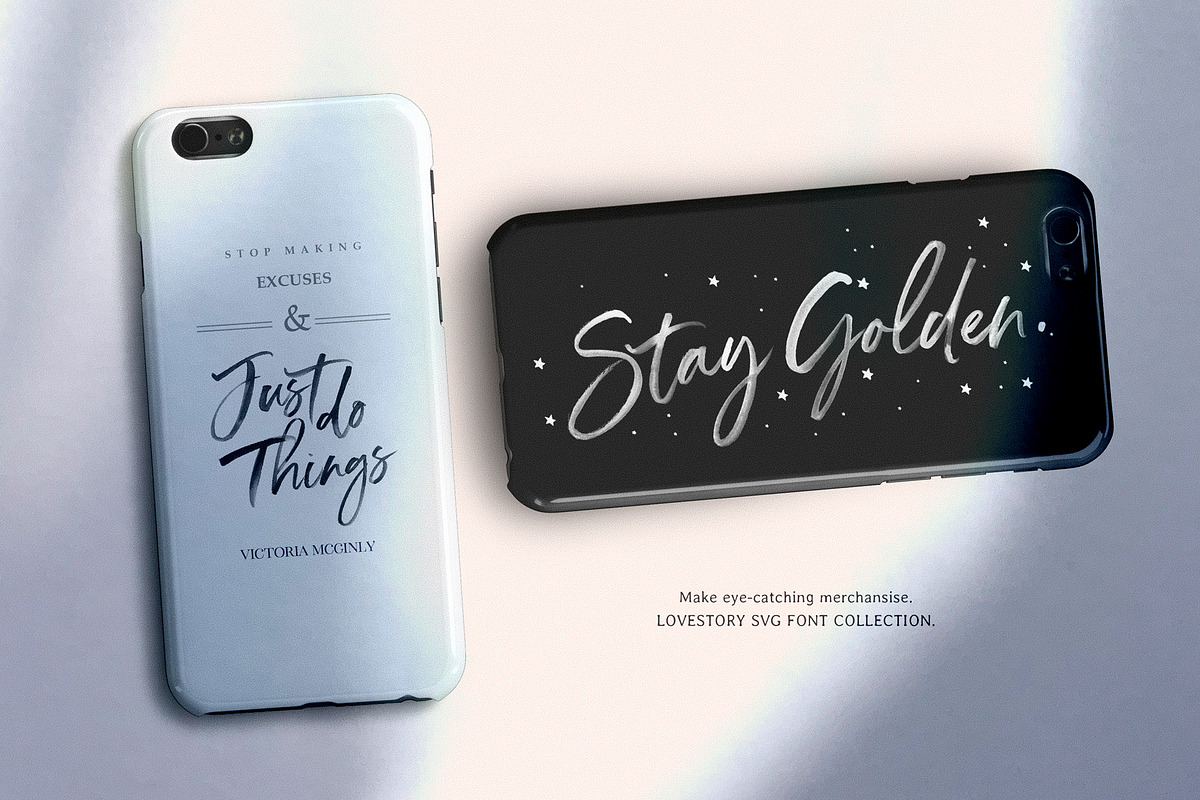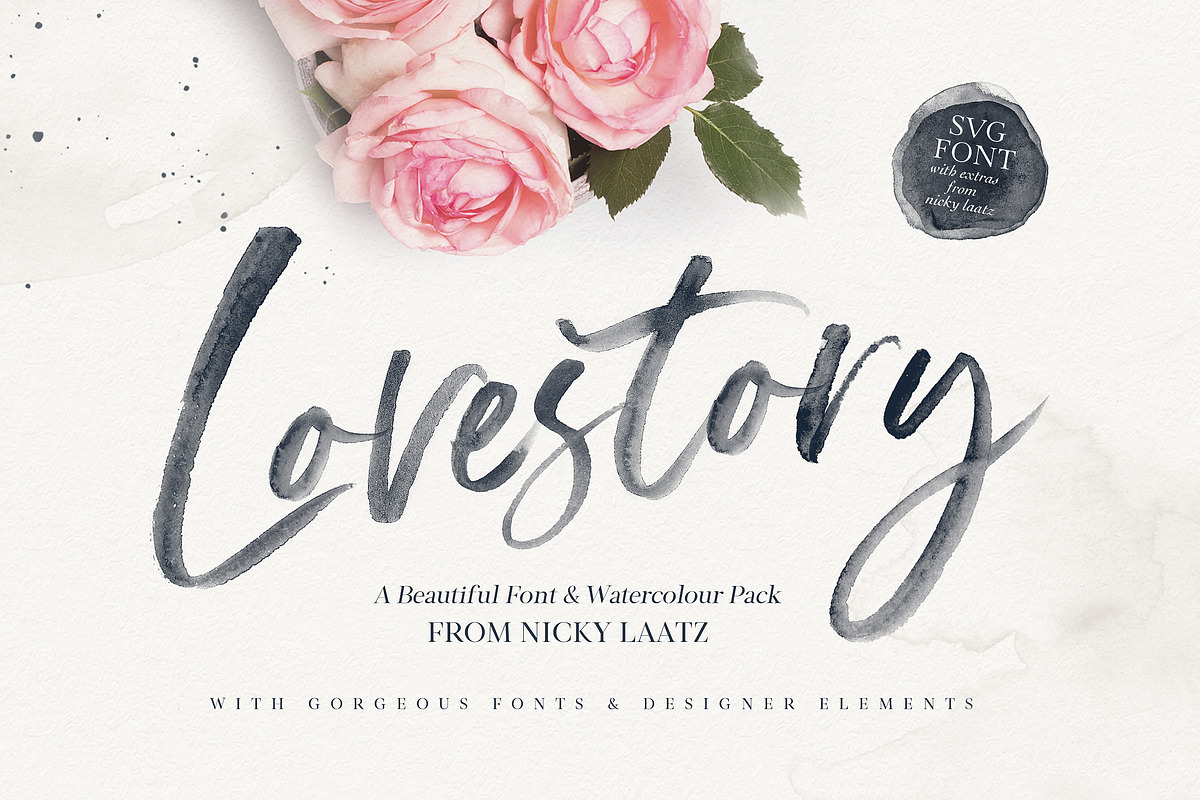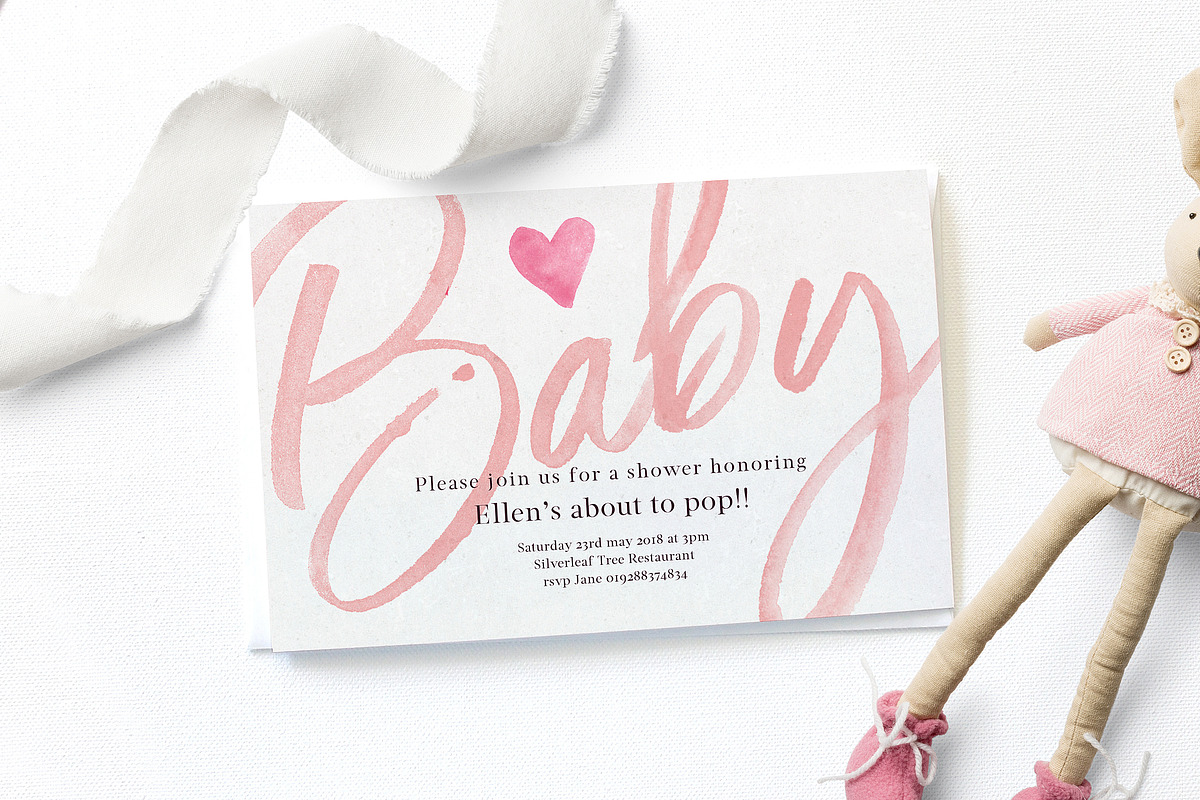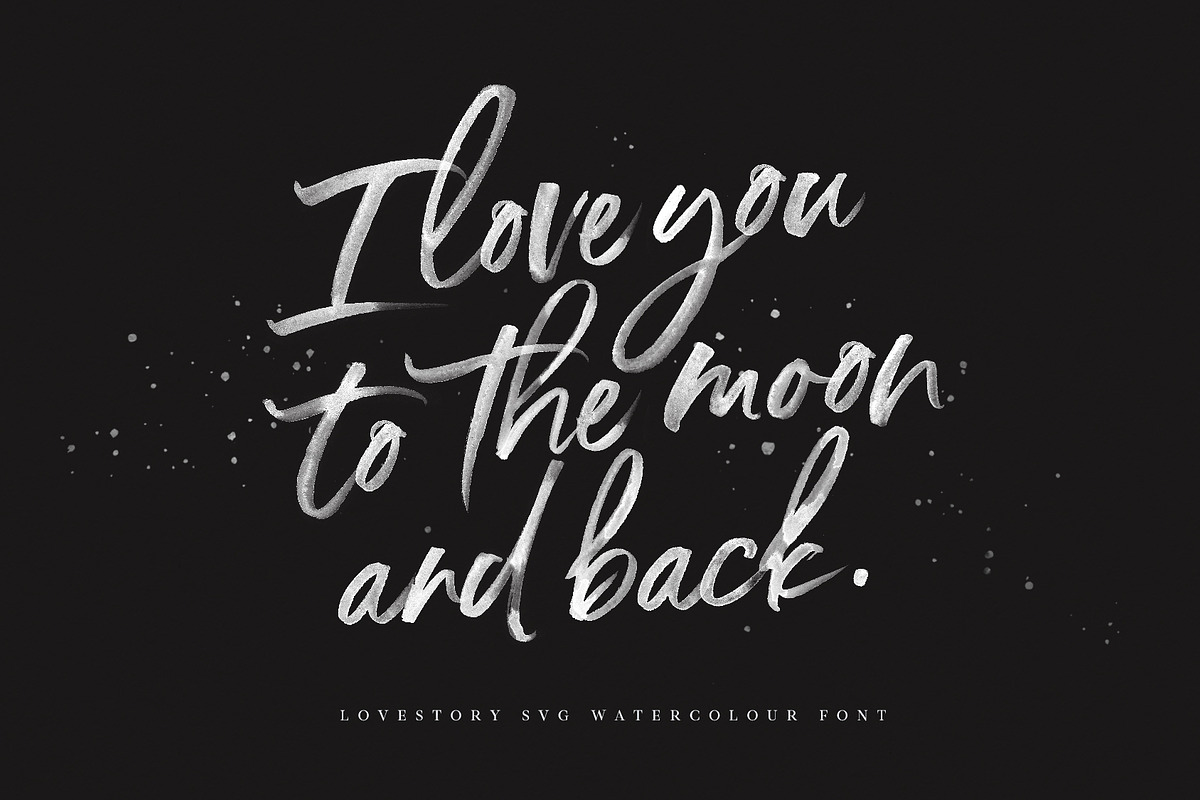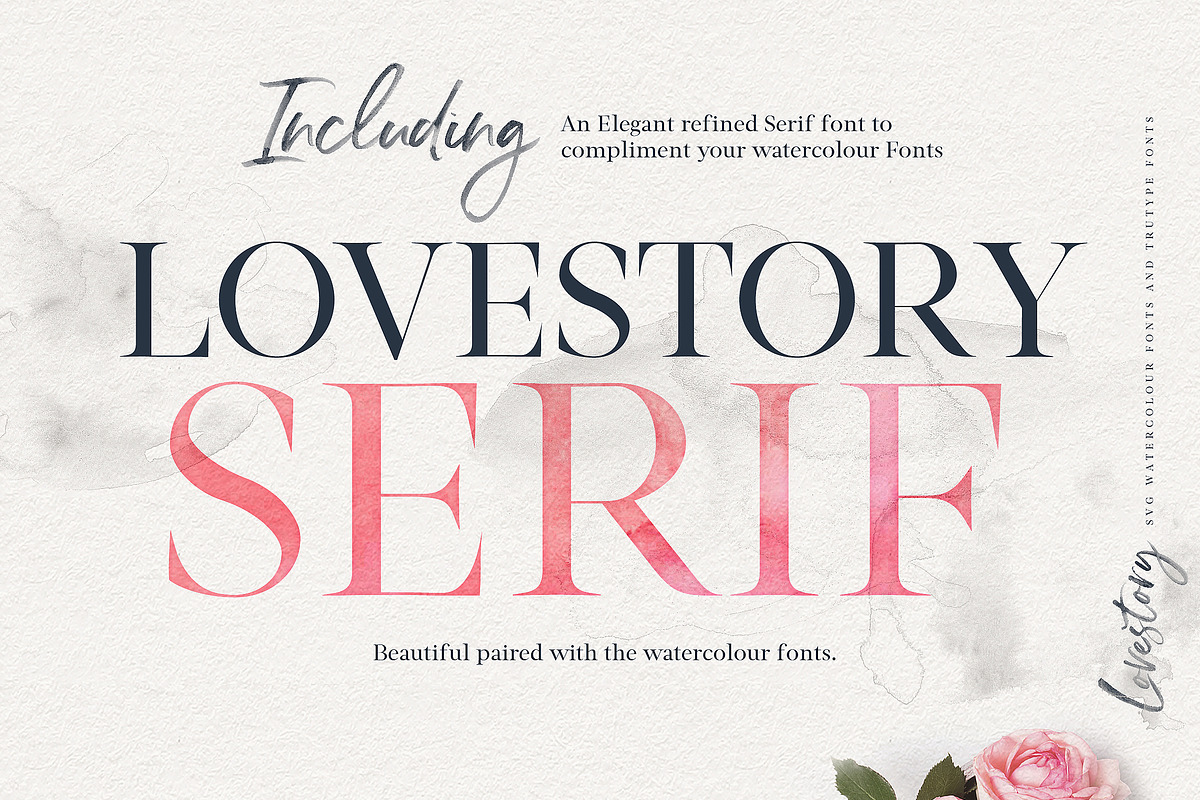
The Lovestory Font Collection
Make your own Lovestory!, with the new Lovestory SVG Font Collection - a set of elegantly co-ordinated graphic SVG fonts and elements to create beautiful typographical designs.
The Lovestory Collection, consists of
2 SVG Watercolour Brush fonts
2 Regular Solid Brush Font versions of the SVG fonts
A beautifully elegant full serif font
And a selection of beautiful watercolour design elements
Lovestory SVG Fonts are made by converting hand painted watercolour lettering , unchanged, including all its transparency and high resolution watercolour detail - into an actual font - as you type your letters out, it looks like you have just hand painted them.
Uppercase and Lowercase Alternate Letters : Whistful & Romantic , Lovestory SVG font comes in two variations, to allow you to pick and choose which letters best suit the look you are after.
THE BEAUTIFUL EXTRAS :
Lovestory also comes with some beautiful extras to help add even more watercolour beauty to your designs...